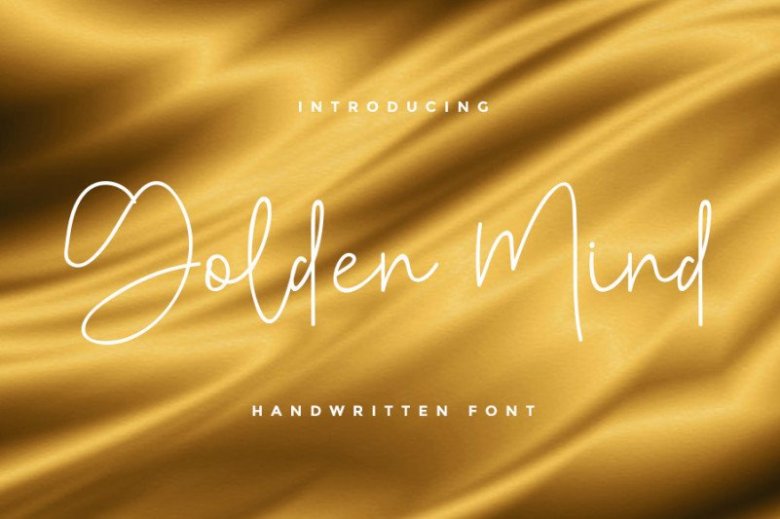
Golden Mind Script Font
Introducing Golden Mind Font. A new modern & fresh script with a handwritten and script style make this font looks elegant, natural, stylish and perfect for any awesome projects that need handwriting taste. It is design and shared by Rantau Type. It’s a lovingly handwritten and we keep this font looks elegant, classy, readable, stylish, catchy and easy to use. Golden mind is the great choice for watermark on photography, signature or signature logo design, quotes, album cover, business card, and many other design project. Golden mind is here to make your work to high level!!!